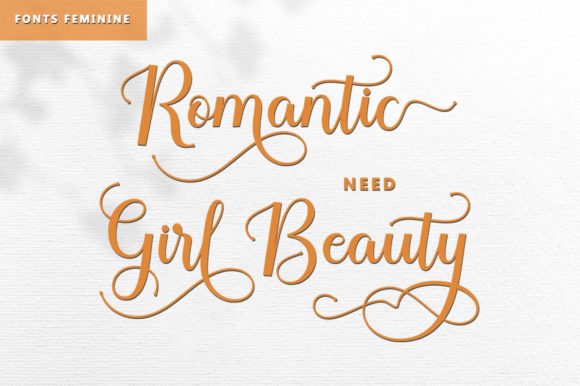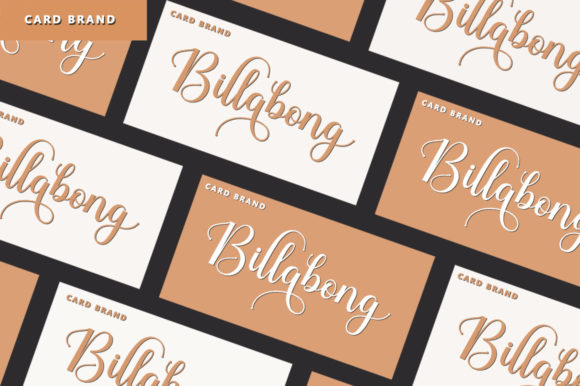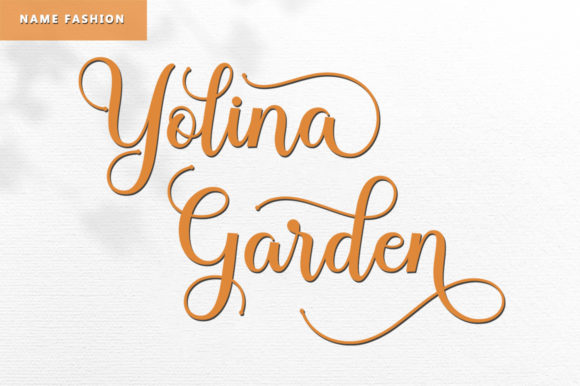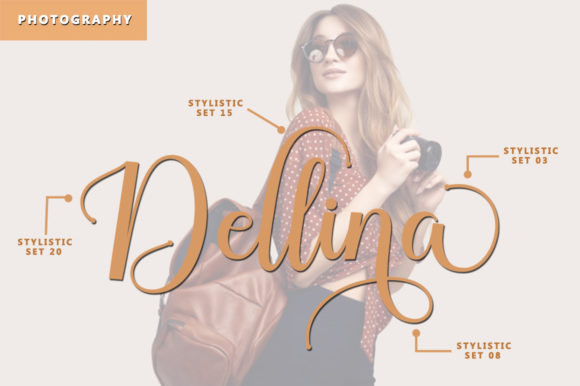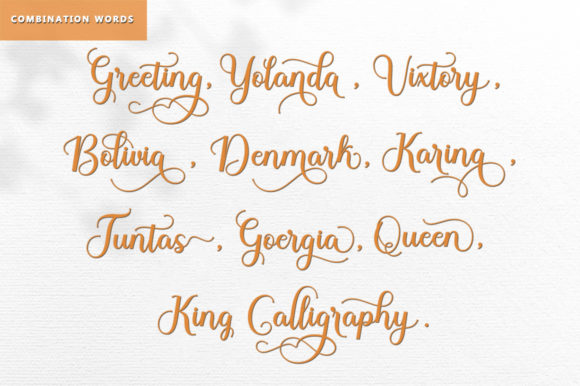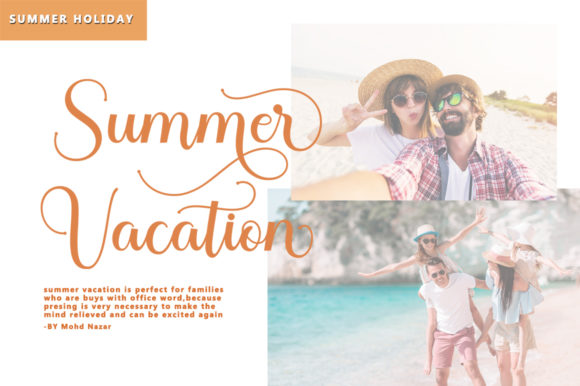
Introduction to Baby Gatera Font
Baby Gatera is a romantic and sweet calligraphy typeface with characters that dance along the baseline.
It has a casual, yet elegant touch It can be used for various purposes such as logos, wedding invitations, headings, t-shirts, letterhead, signage, labels, news, posters, badges and so much more.